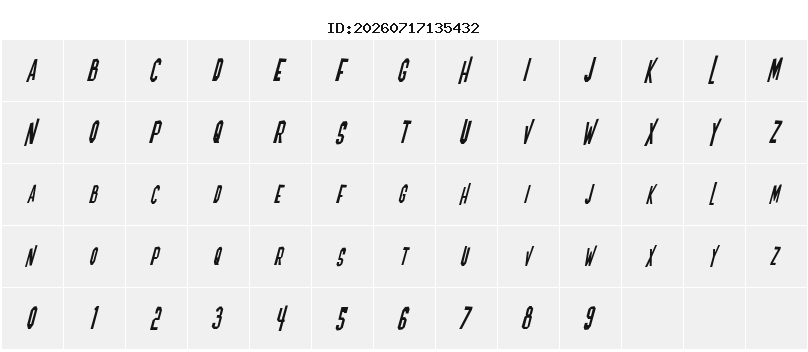
• Font Name: Blofeld
• Full Font Name: Blofeld Italic
• Designer: Neale Davidson
• Manufacturer: Neale Davidson
About Blofeld.ttf
Blofeld.ttf is a modern, elegant sans-serif font designed for ultimate readability and visual harmony. Perfect for branding, headlines, web design, and print materials.